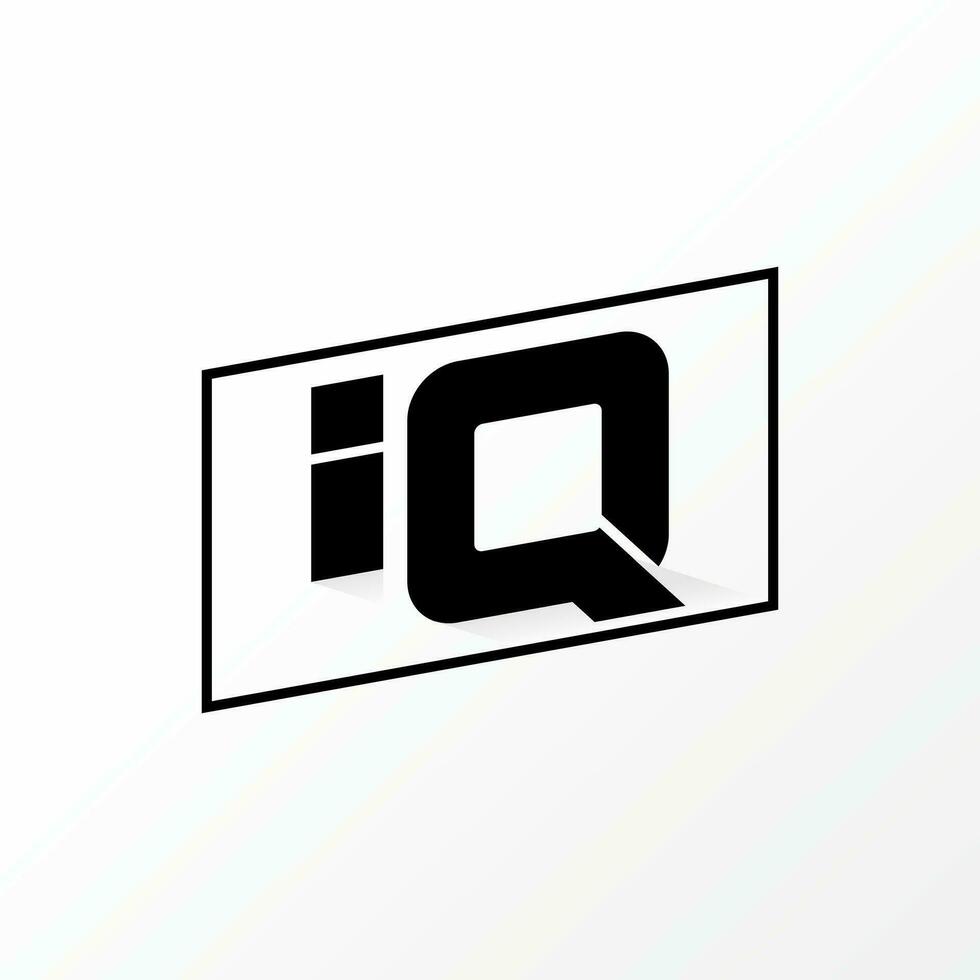
Logo design graphic concept creative abstract premium free vector stock letter IQ font 3D with shadow also rectangular line Related to typography tech Pro Vector